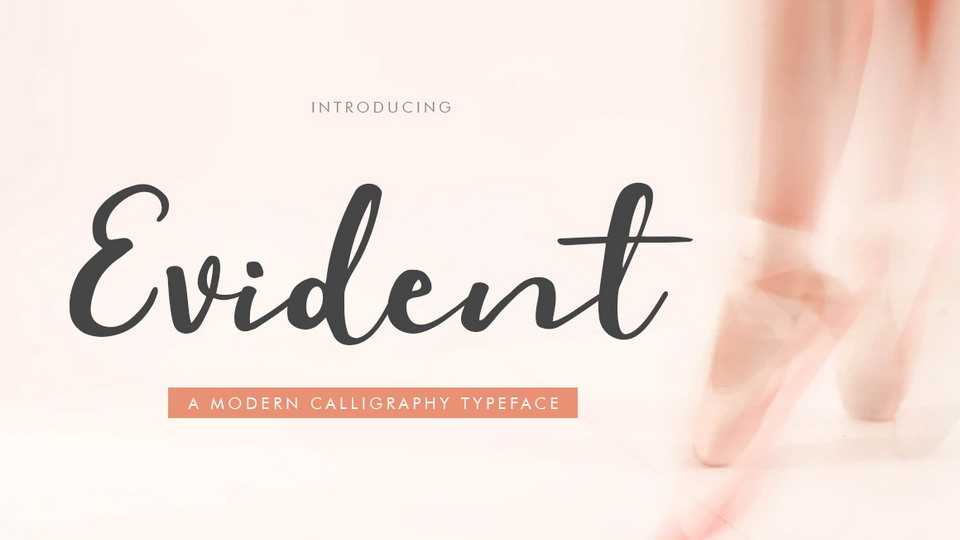
Download Evident Script font, a wonderful handwritten typeface with fresh & modern style. Suitable for logo, branding, greeting card, poster and any design that you create.